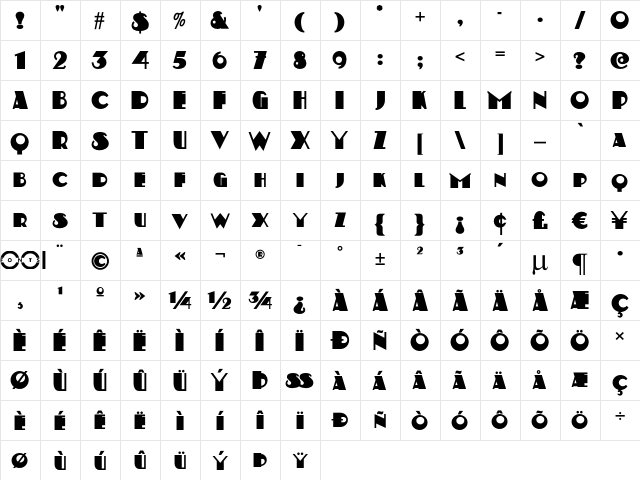
Kerfuffle NF Regular
| Designer | Nick's Fonts |
Design Context for Kerfuffle NF Typeface
Kerfuffle NF is a composed and adaptable typeface that performs quietly and consistently across a wide range of design contexts.